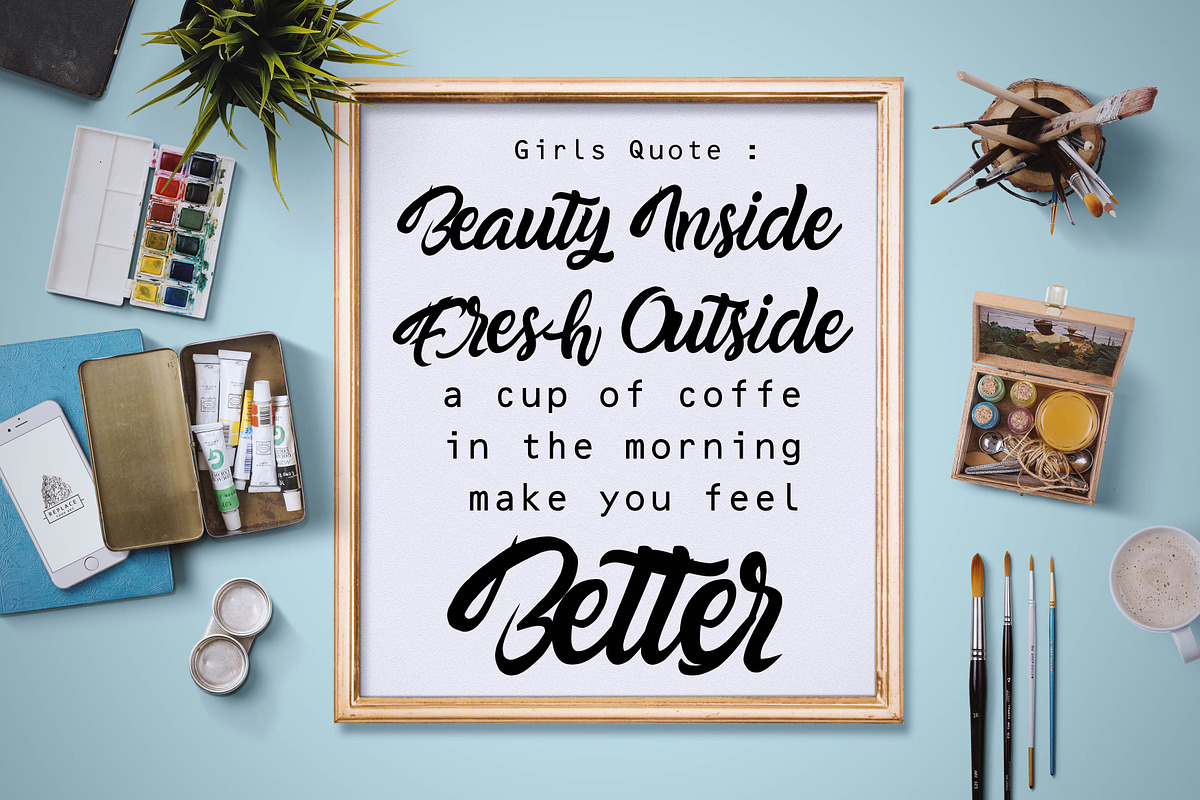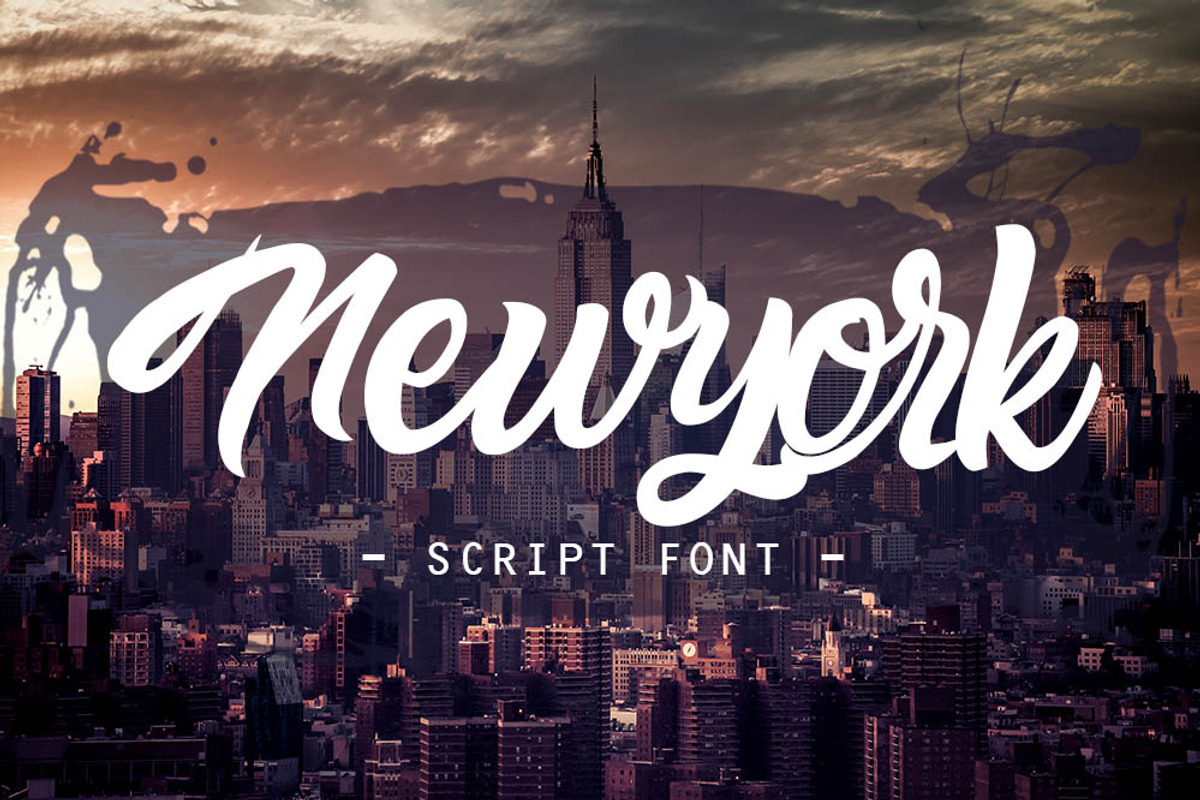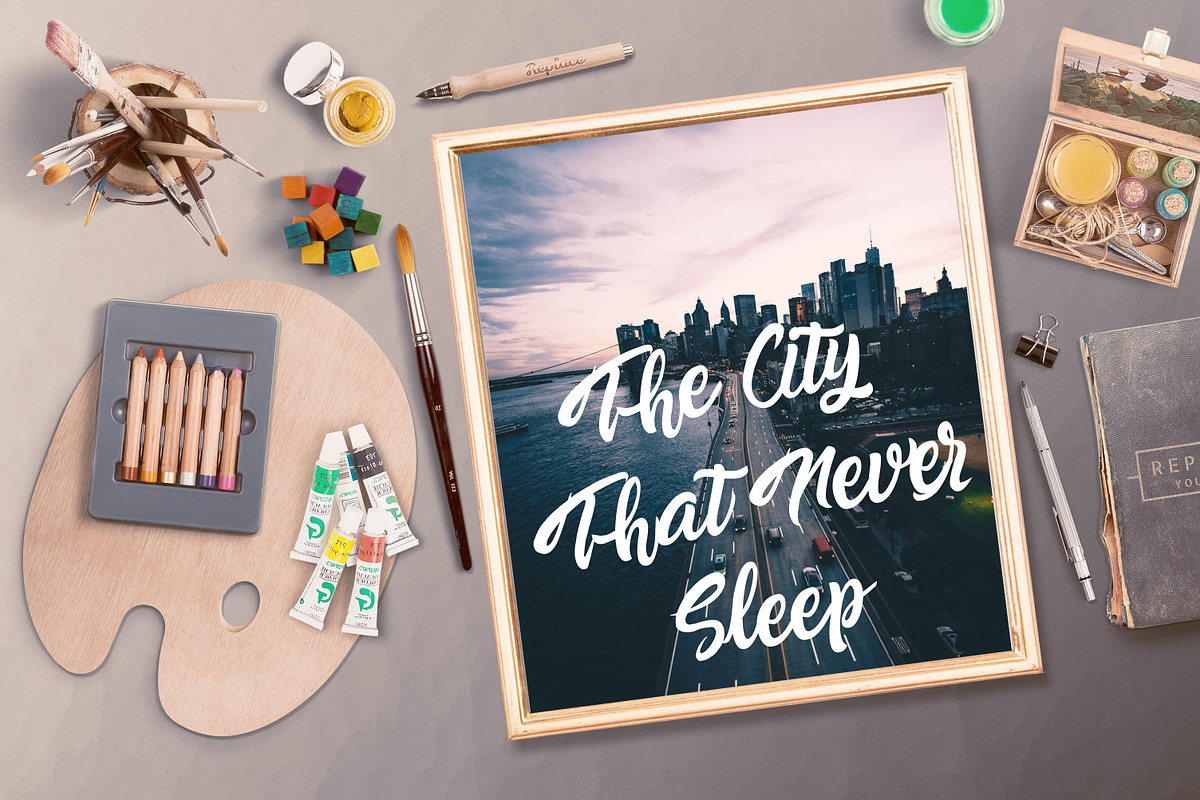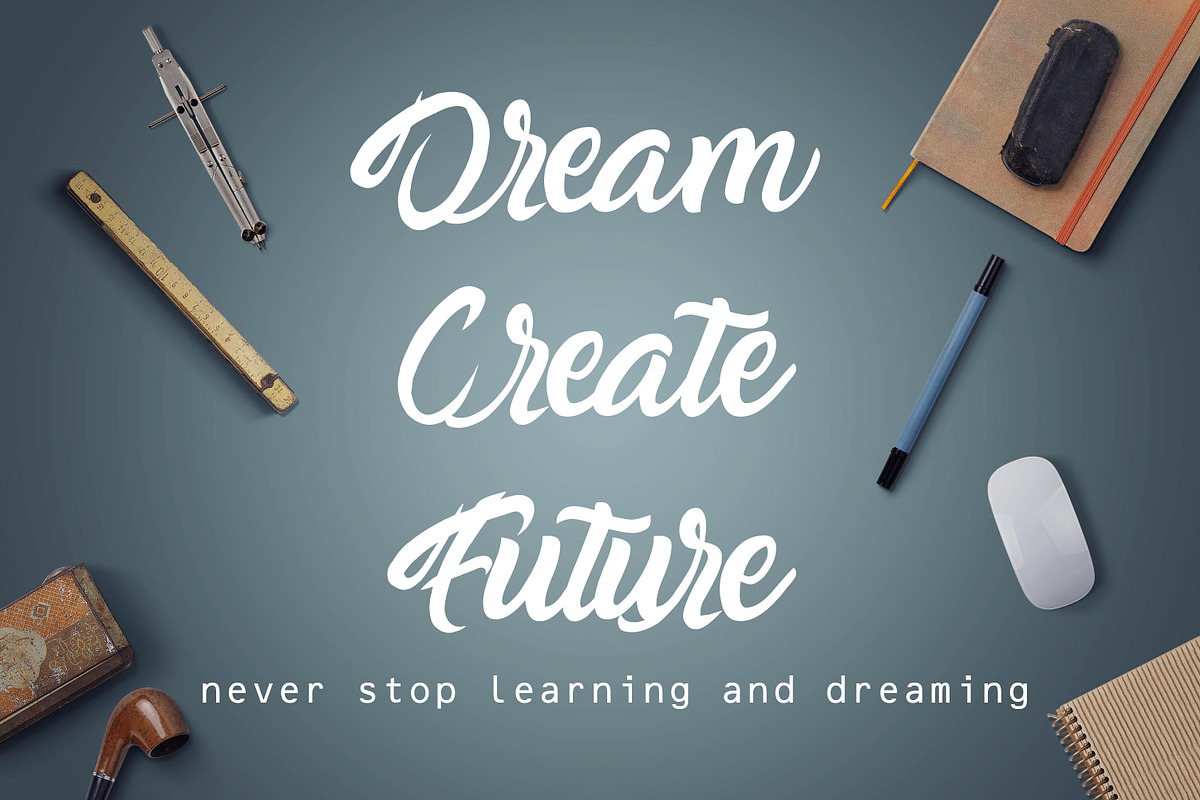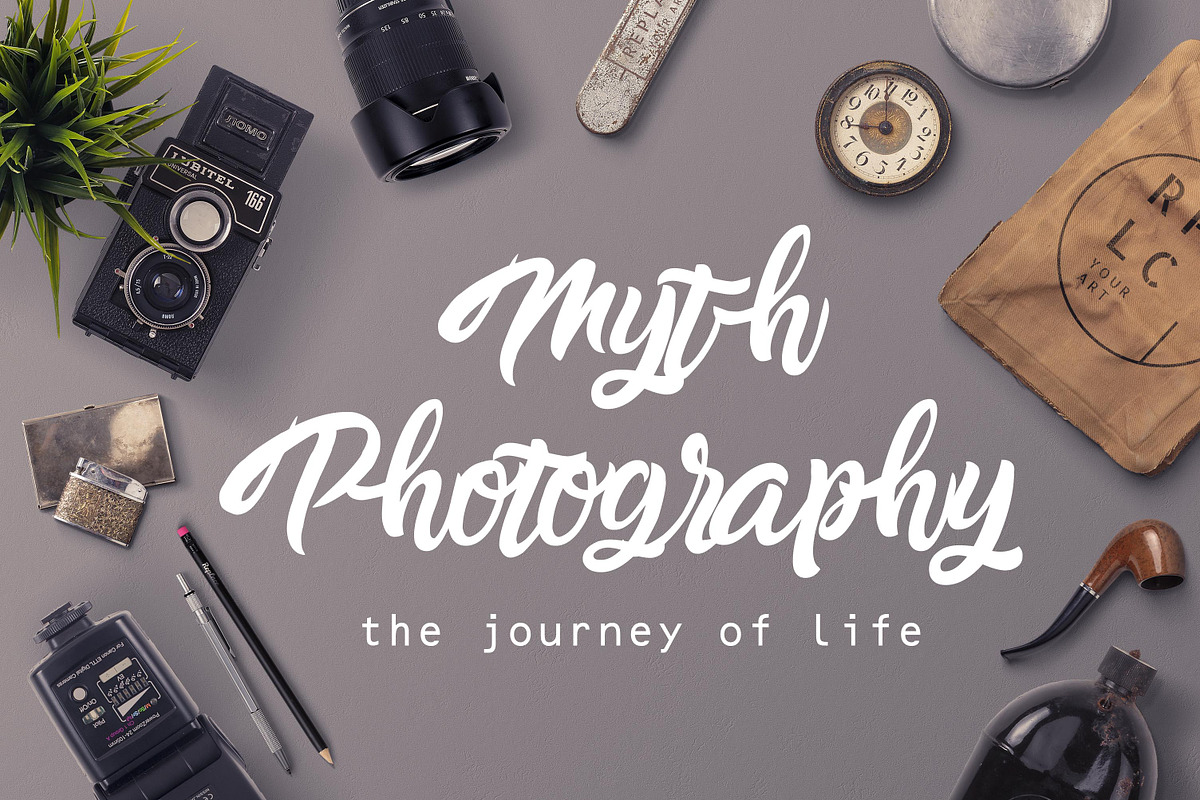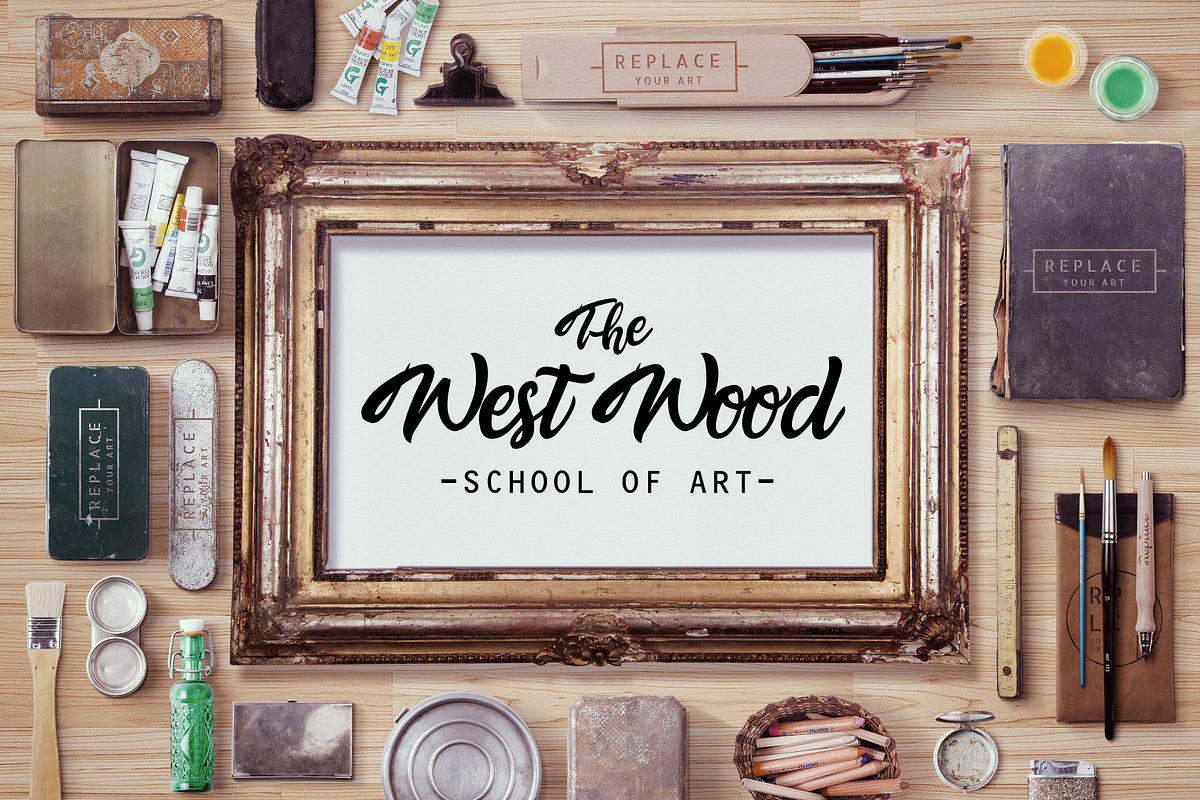
Newyork script font
made from hand drawings and shaped vectors therefore this font is very high resolution when typed into sentences. suitable for logos, clothing, apparels and others. Enjoy it. thanks.
Why Newyork script font is worth a look
Newyork script font by fluffyartstudio fits naturally into Branding, posters, packaging, typography.